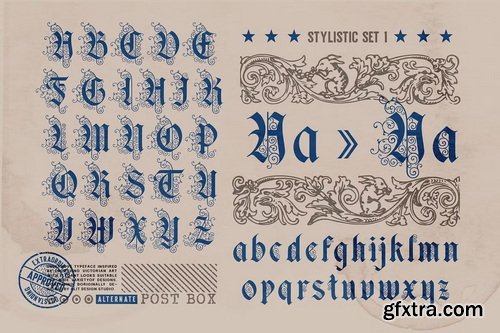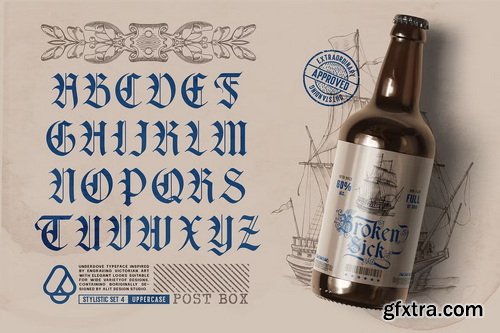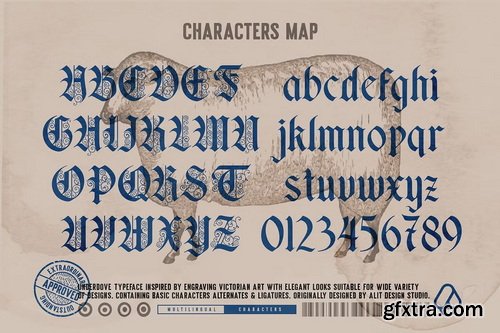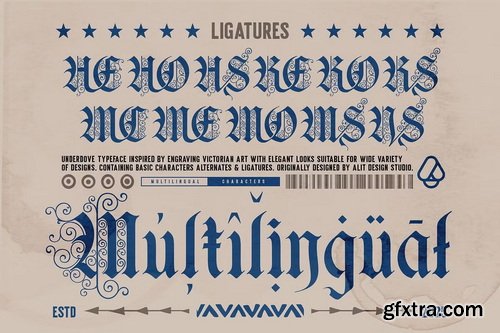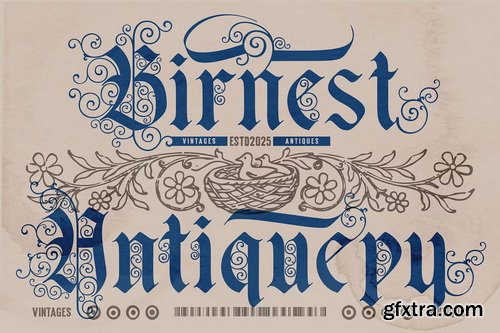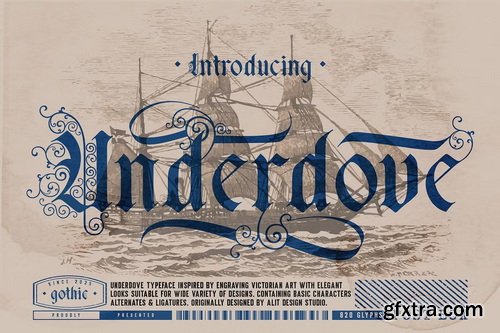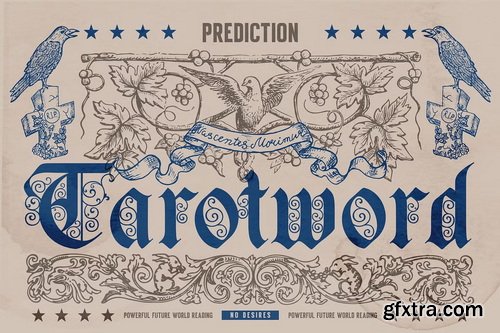
CreativeMarket - Underdove Typeface
Introducing Underdove Typeface, a meticulously designed blackletter font that draws its soul from the Victorian era’s ornamental engravings and the enduring sophistication of classical calligraphy. Each character in Underdove is shaped with intention — combining bold Gothic structure with flourished elegance — making it a powerful choice for branding, editorial designs, packaging, posters, and other high-impact visual compositions. Underdove is more than a typeface — it’s a visual narrative. It evokes the craftsmanship of 19th-century woodcuts and maritime documents, echoing the artistry found in old nautical maps, heraldic documents, and vintage engravings. The name Underdove conjures a sense of mystery, resilience, and nobility — qualities reflected in each glyph.
Font Features
- 820 total glyphs – Offering incredible variety and stylistic control
- Stylistic Alternates – Multiple versions of many letters to match any mood or context
- Elegant Swashes – Add flourished tails or extended strokes for custom compositions
- Creative Ligatures – Hand-designed letter pairs and trios for seamless flow
- Multilingual Support – Covers a wide range of Latin-based languages, making it suitable for global use
Perfect For
- Luxury branding and identity
- Historical or fantasy-themed projects
- Gothic, medieval, or vintage aesthetics
- Event posters and album artwork
- Packaging for wines, perfumes, and artisan goods
- Decorative headlines, signage, and tattoo design